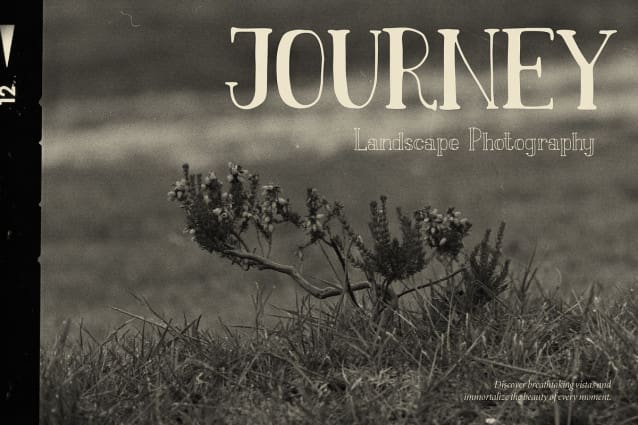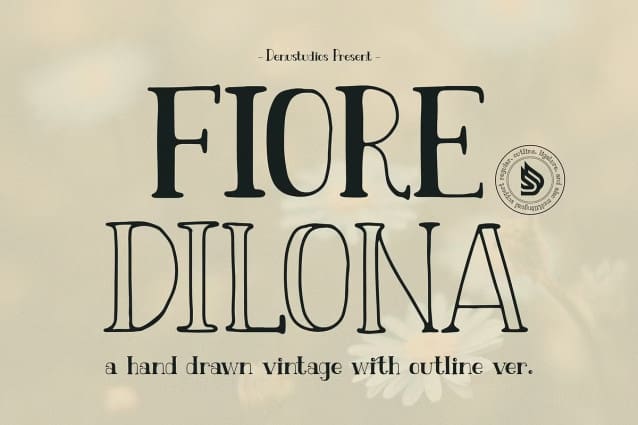
Fiore Dilona Font
Fiore Dilona Font | Hand Drawn Vintage, from Denustudios, suitable for any projects such as: logos, branding projects, homeware designs, product packaging, mugs, quotes, posters, shopping bags, t-shirts, book covers, name card, invitation cards, greeting cards, label, photography, watermark, special events, and all your other lovely projects that need a Hand Drawn Vintage taste.